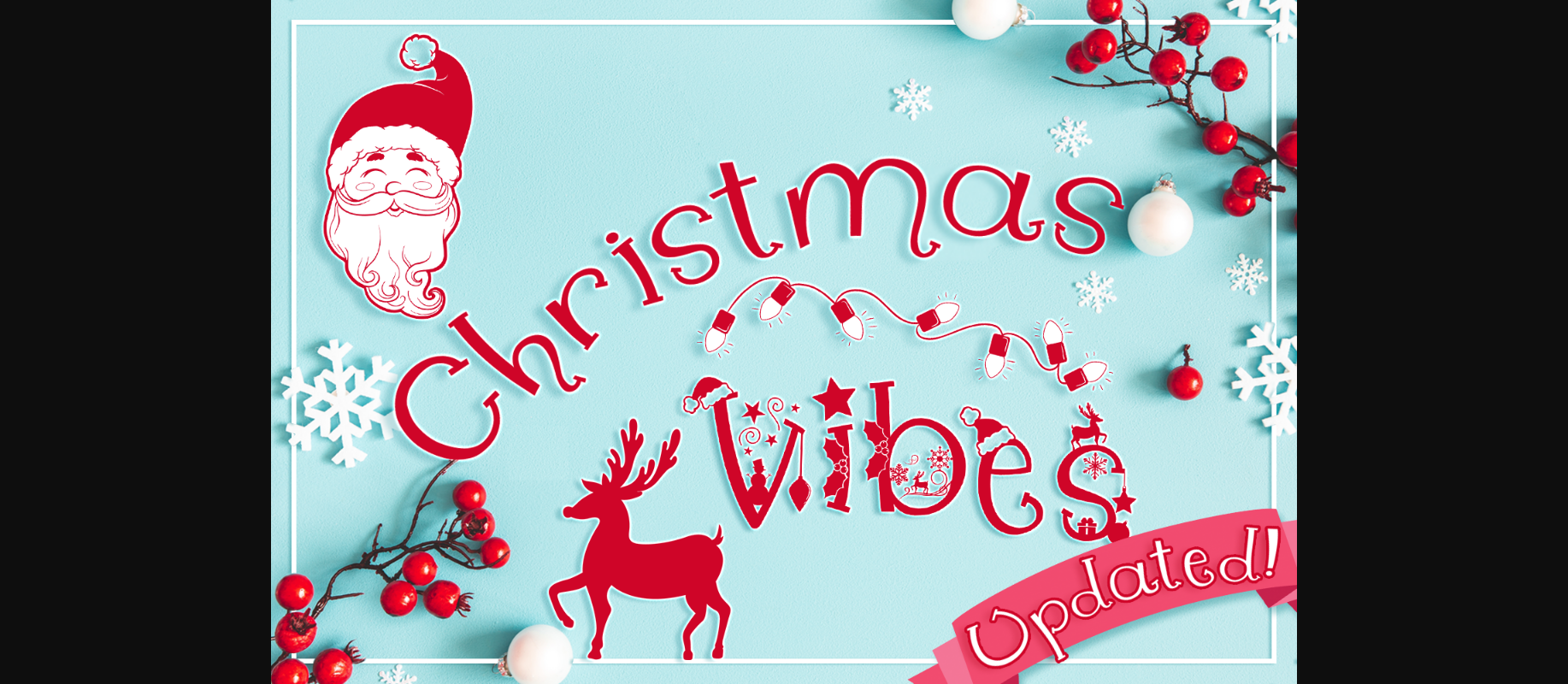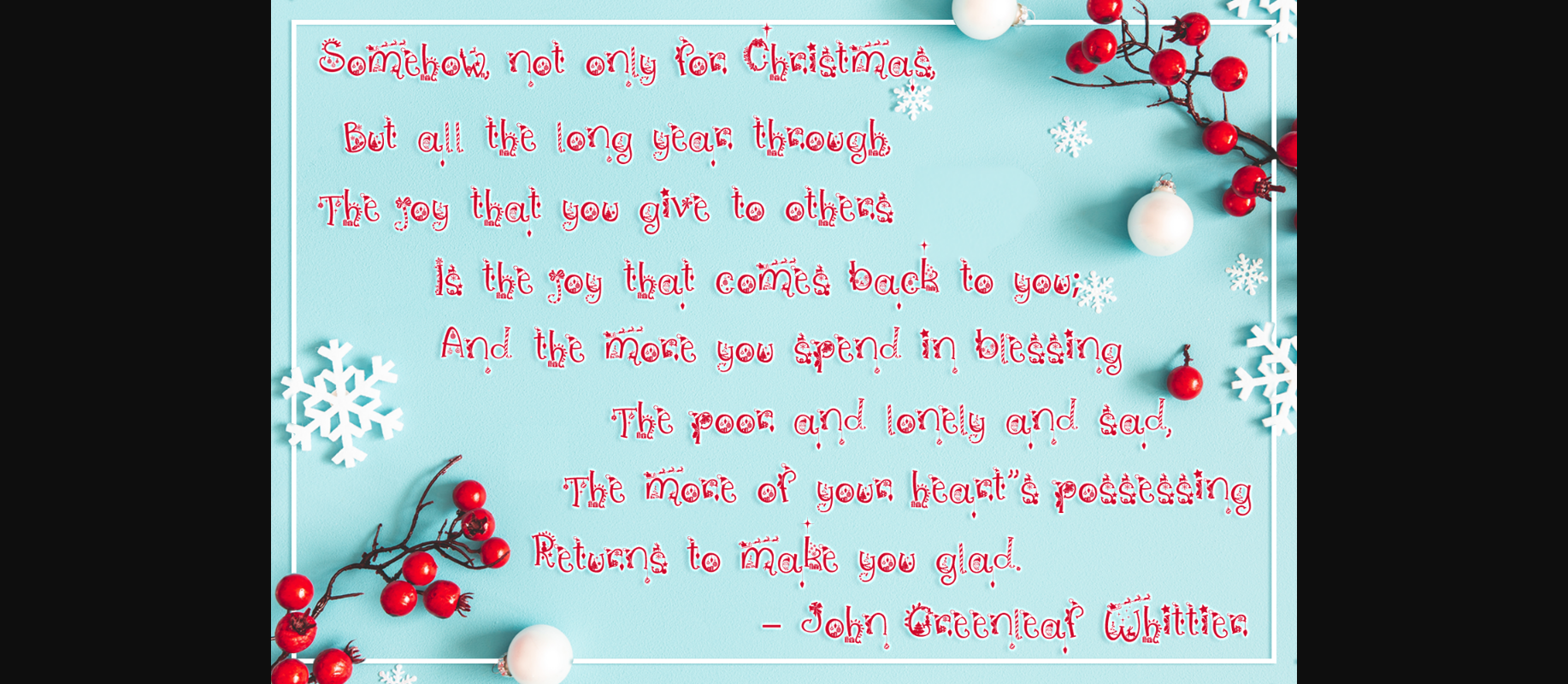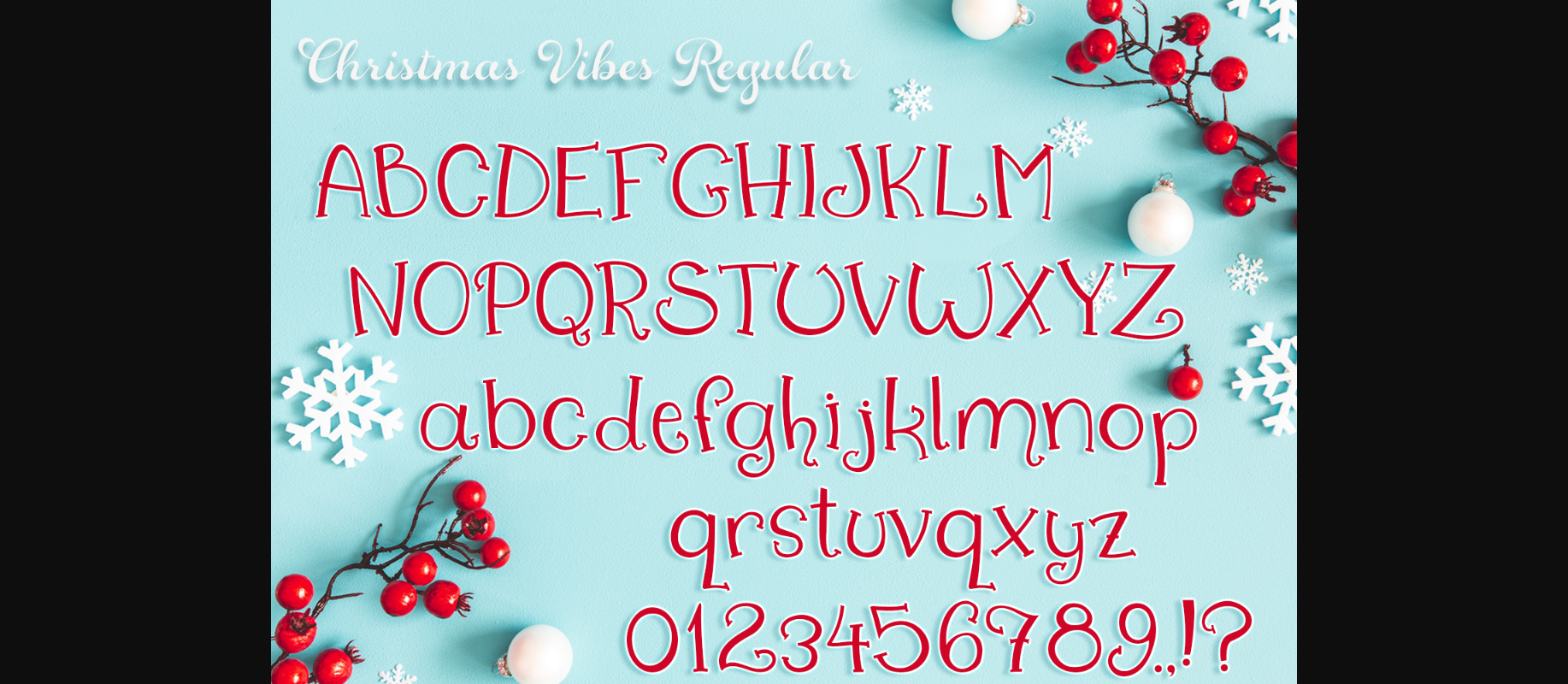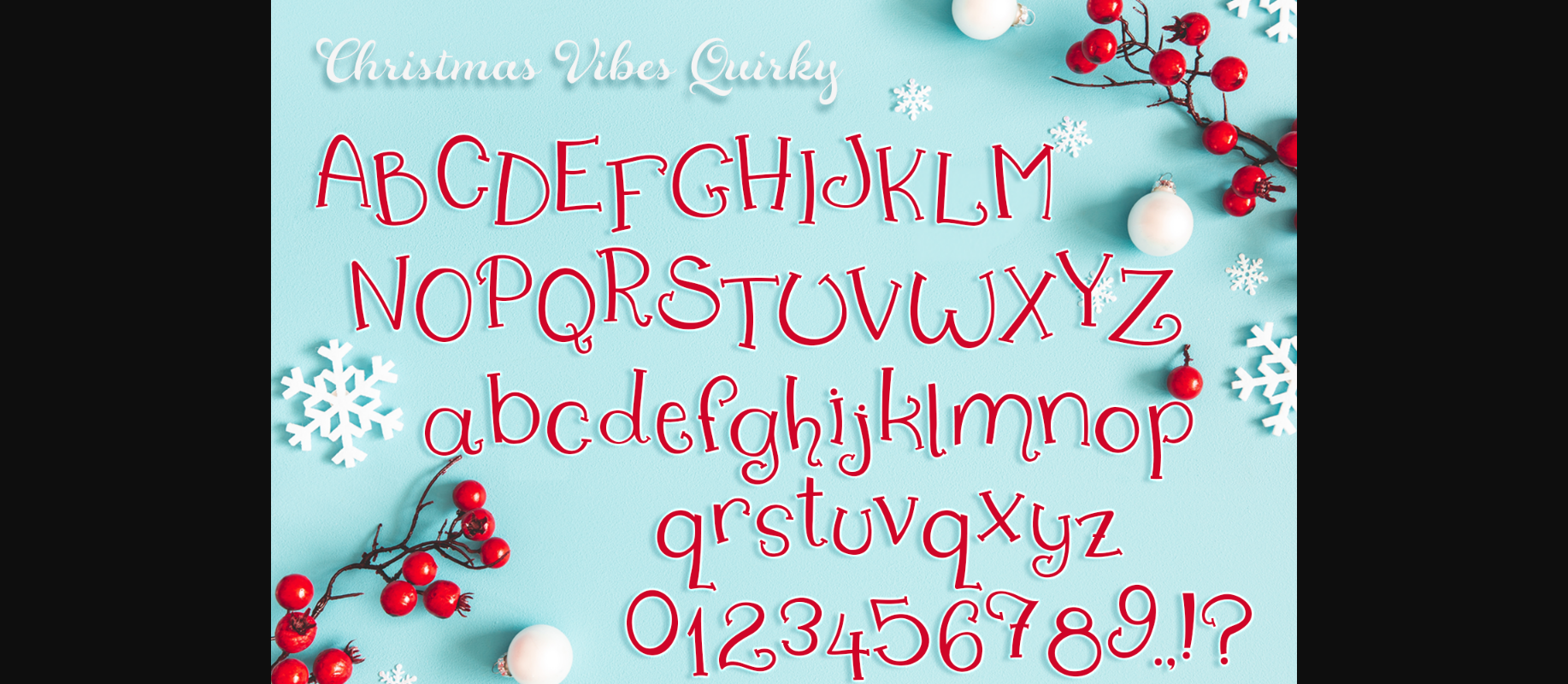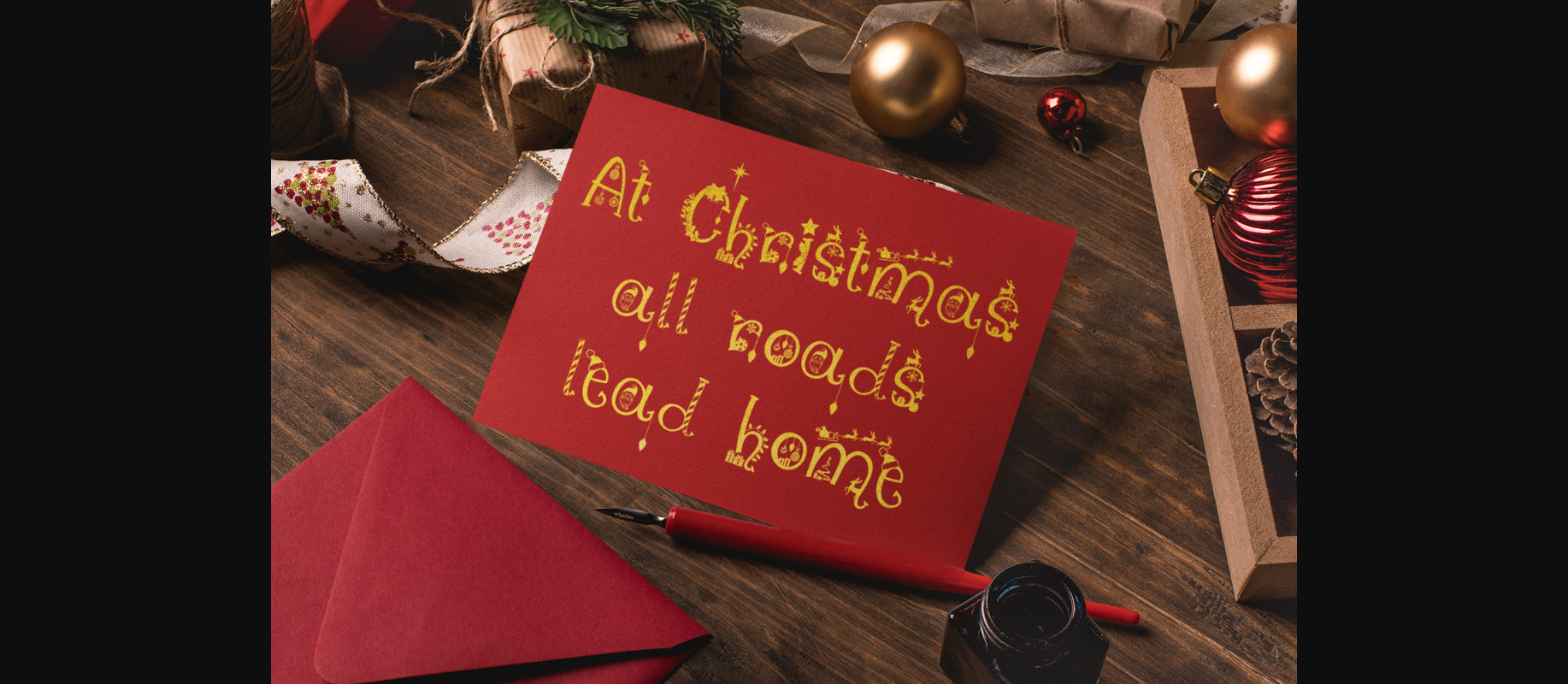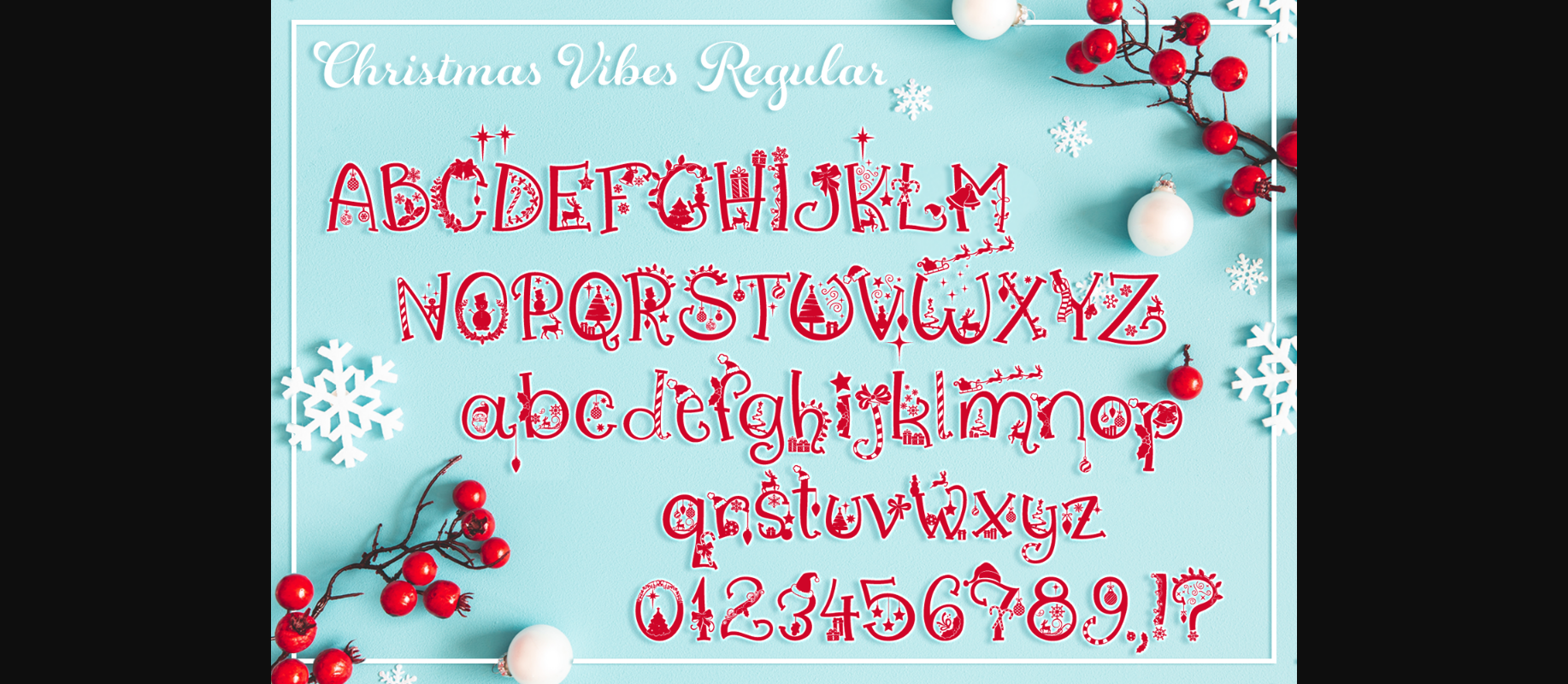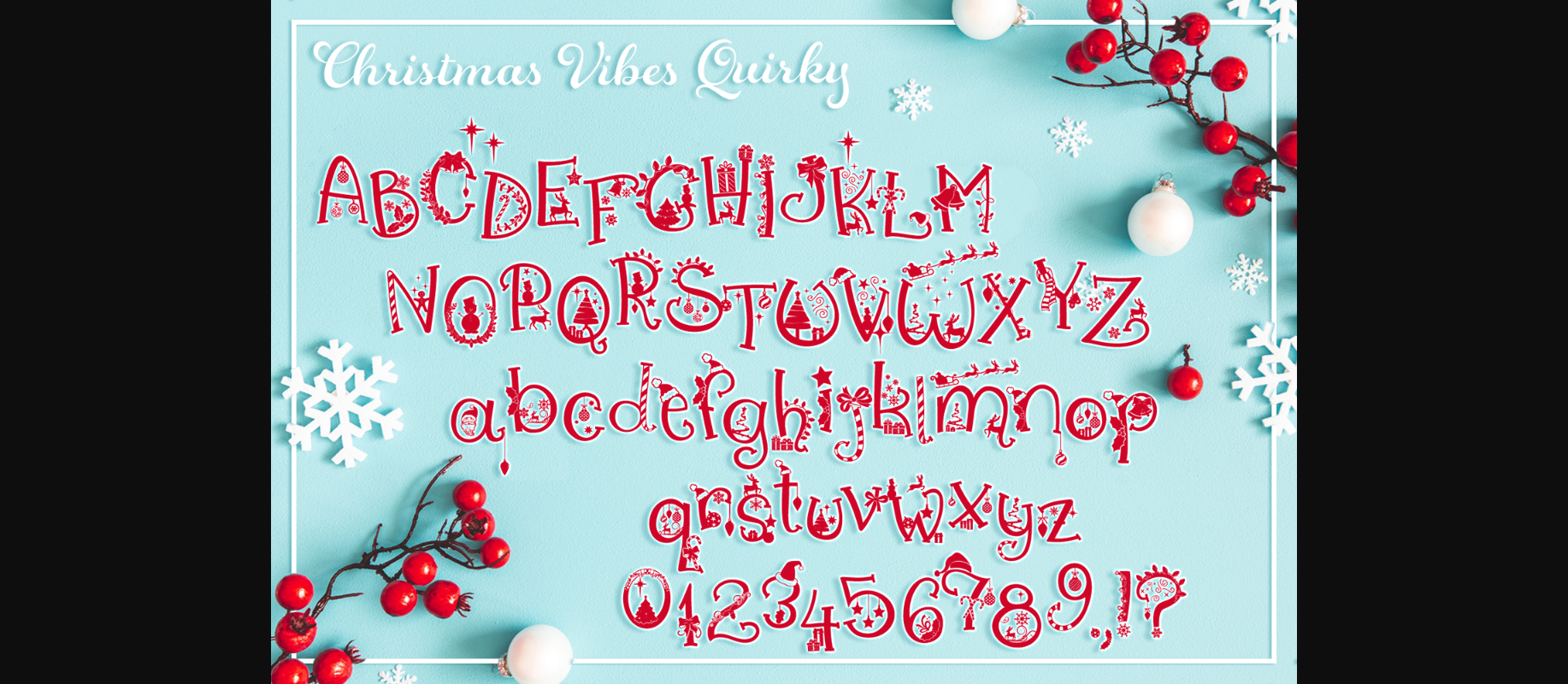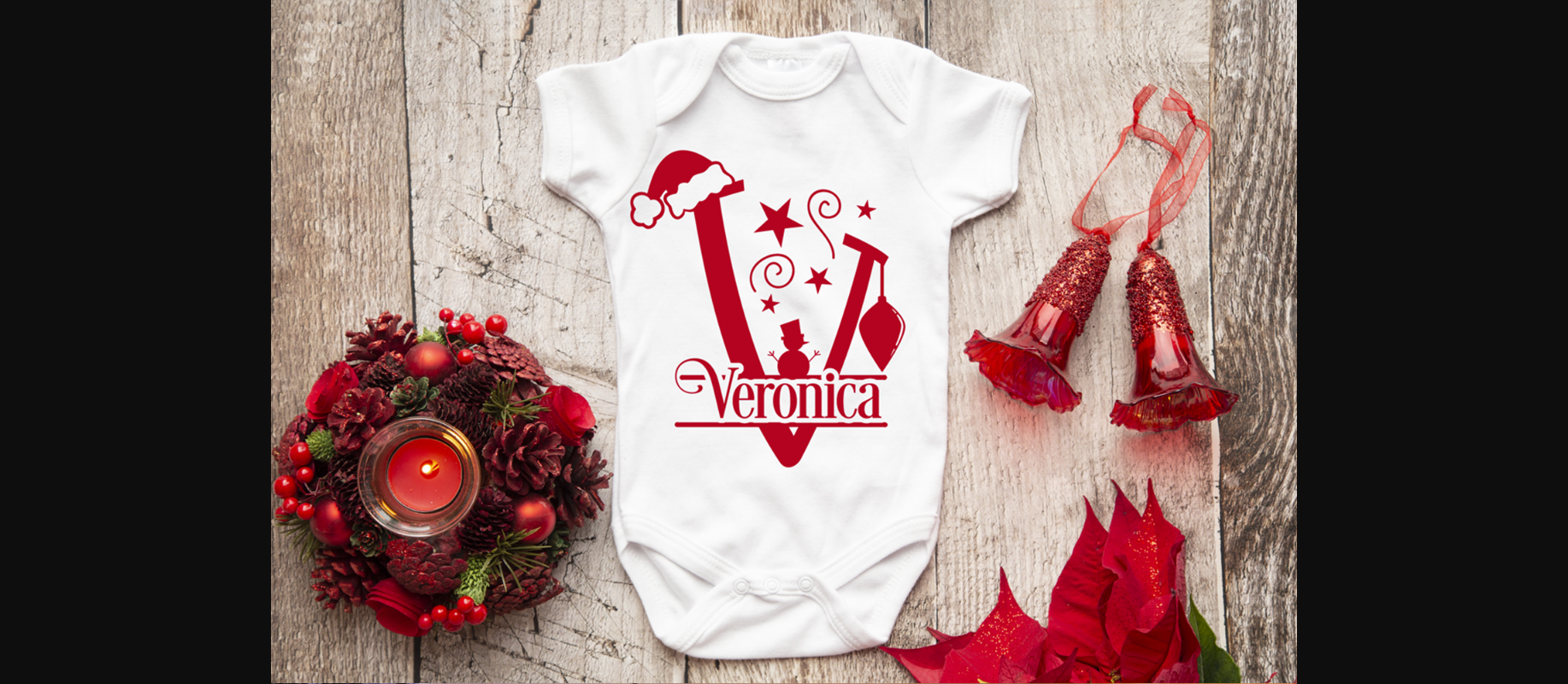
About Christmas Vibes Font
Christmas Vibes is a fun decorative font with a Christmas holiday theme. Add this font to your favorite creative ideas and notice how it makes them come alive!